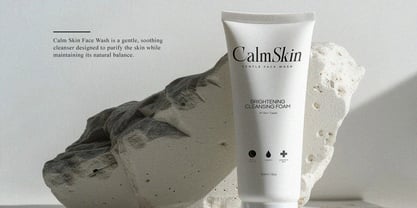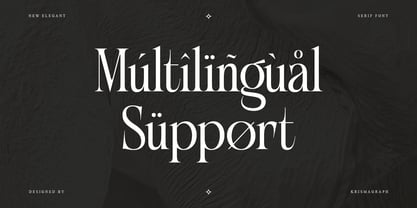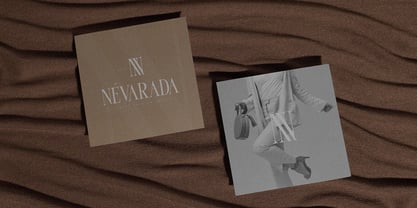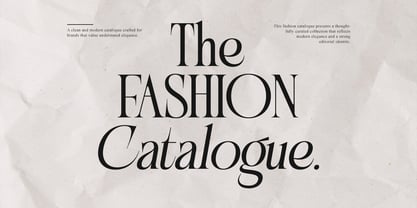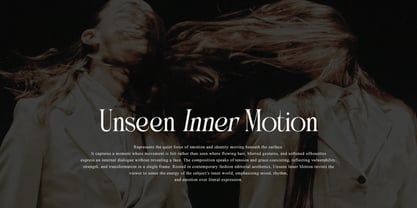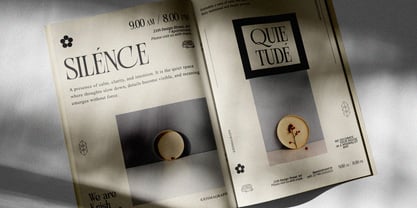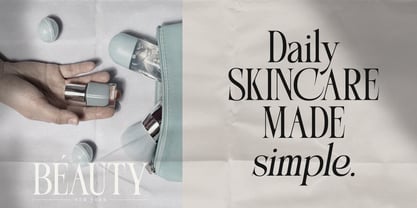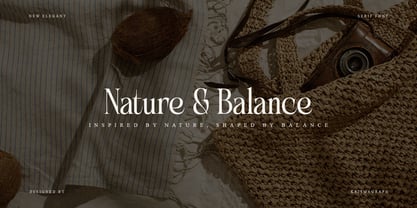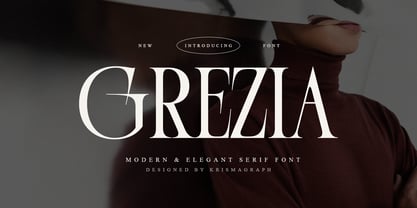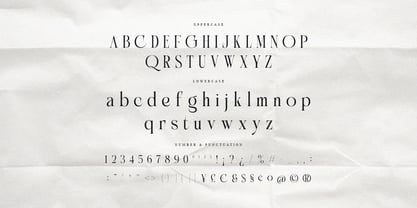
Grezia
The Grezia Font Family was designed by Ratna Krismawati and published by Krismagraph. Grezia contains 1 styles. More about this family
Grezia is a modern and elegant serif font that blends timeless sophistication with contemporary character. Designed with high contrast strokes, refined curves, and graceful proportions, Grezia delivers a luxurious yet confident presence across a wide range of creative projects. This typeface shines in editorial layouts, branding systems, logo design, invitations, packaging, social media visuals, website headers, and premium print materials. Its sharp serifs and balanced letterforms create strong visual hierarchy while maintaining readability and elegance. Grezia is crafted for designers who seek a serif font that feels modern, stylish, and expressive without losing its classic foundation. Whether used for headlines or short statements, Grezia adds a polished and distinctive voice to any design composition. What you get : - Grezia File - Numbers, fractions - Punctuation and symbols - Alternates - Ligatures - Multilingual support Feel free to follow, like, and share. Thank you and I hope you enjoy it!